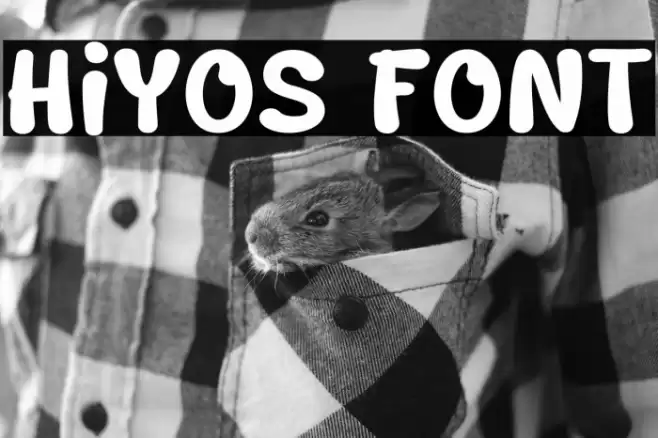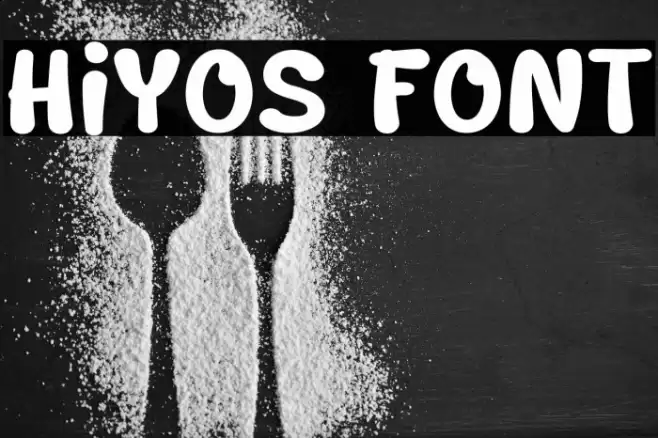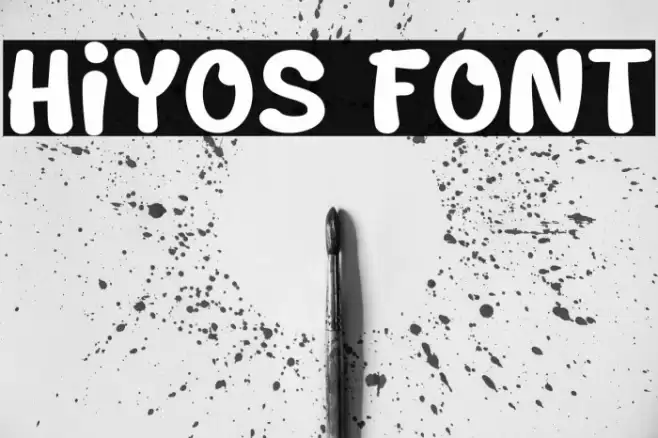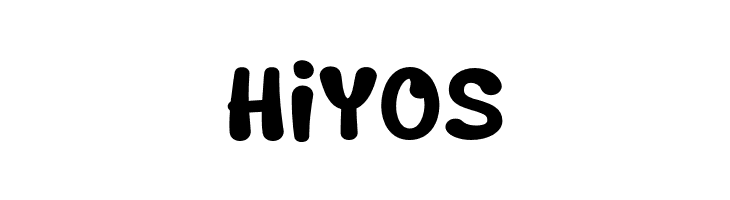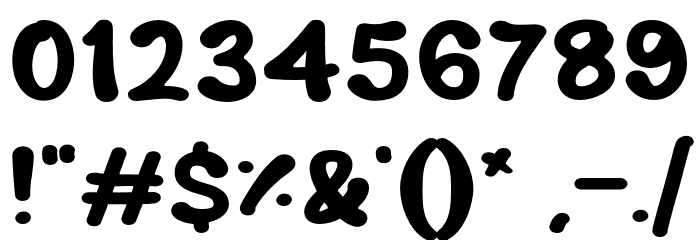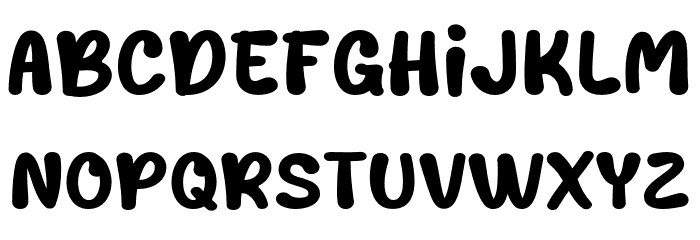
Hiyos Font
Hiyos Description
This playful and bold font features rounded, thick strokes that give it a friendly and approachable appearance. The characters are slightly condensed, with a consistent weight that maintains readability while adding a touch of whimsy. The uppercase and lowercase letters are well-balanced, with a smooth flow that enhances its casual style. The numbers and special characters are equally bold, ensuring uniformity across all elements. This font is perfect for projects that require a fun and engaging look, such as children's books, playful branding, or creative posters.
A bold, playful font with rounded, thick strokes and a friendly appearance from Uncategorized fonts.
- Font: Hiyos
- Proposed Projects: Ideal for children's books, playful branding, creative posters, and casual invitations.
- Width: Condensed
- Overall Style: Playful, Casual